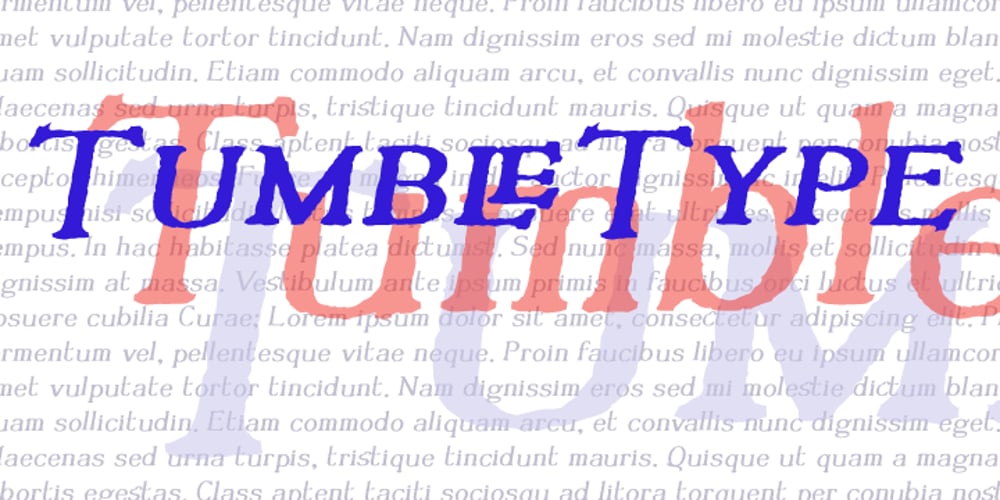
Tumbletype Font Family was designed by published by Greater Albion Typefounders. Tumbletype contains 2 styles and family package options. Tumbletype offers two faces with a fun antique look. This is a rough and tumble Roman face with a hand-cast and much-used look, ideal for recreating early printed documents. Use it for headings and feature paragraphs. It’s the irregularity of this face which makes it so special-give it a try and join in the fun!